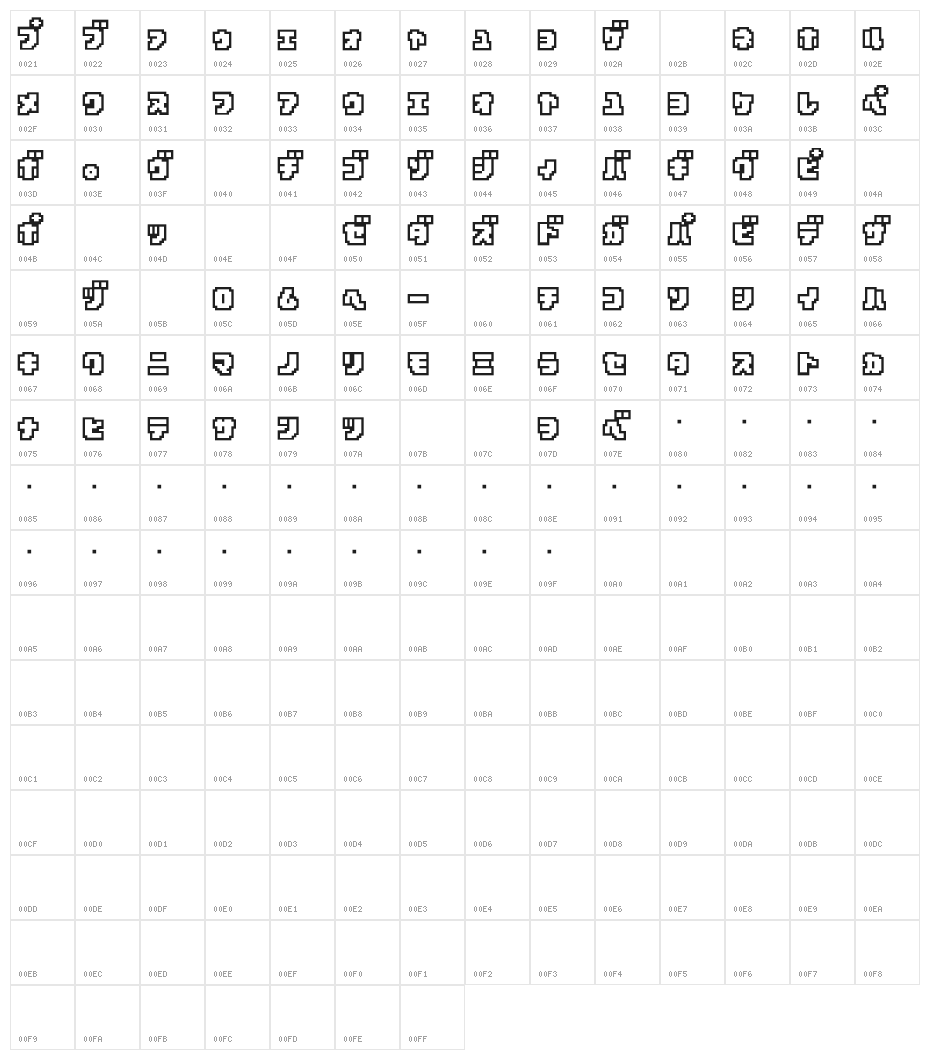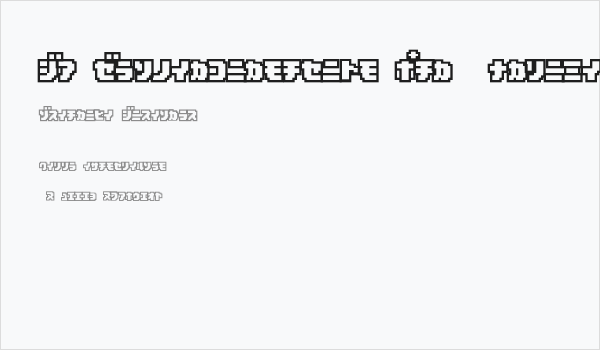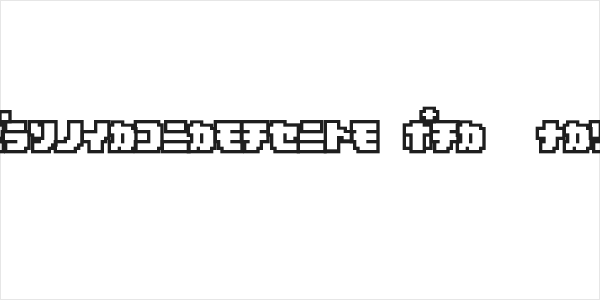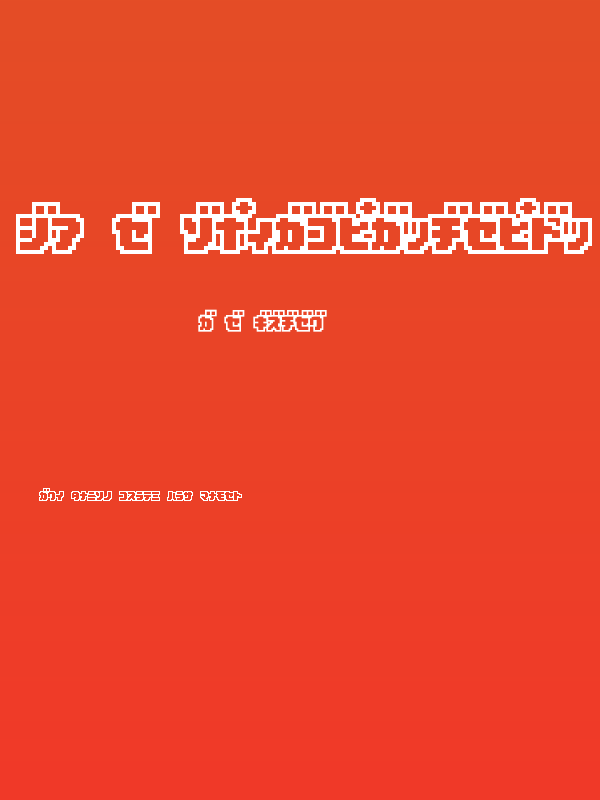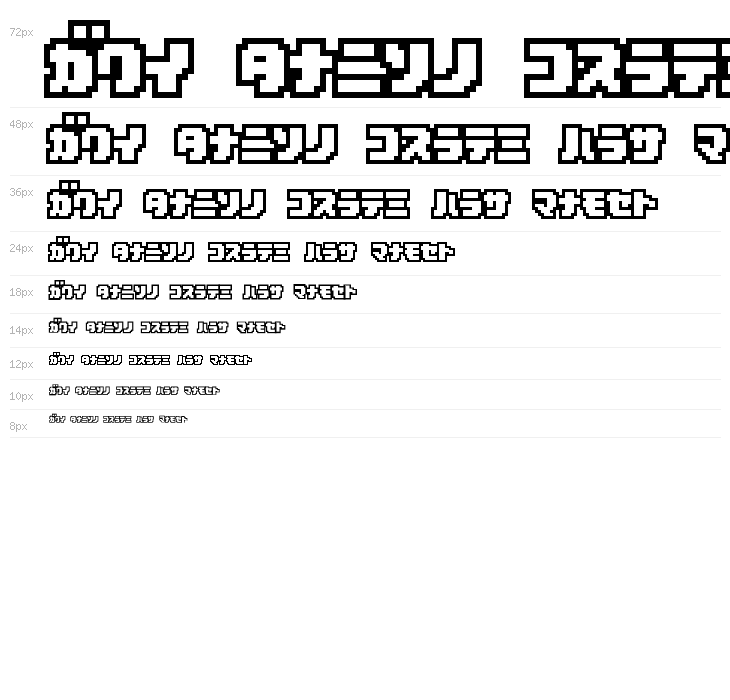
D3 Pocketbitmapism Kat Outline Font
D3 Pocketbitmapism Kat Outline Description
This font features a bold, pixelated style reminiscent of classic video game graphics. Each character is outlined with a thick border, enhancing its blocky appearance. The design is highly geometric, with sharp angles and straight lines dominating the structure of each letter. This gives the font a digital, retro feel that is both nostalgic and modern. The uniformity in height and width across characters ensures a consistent look, making it ideal for projects that require a strong visual impact. The font's playful yet structured design makes it suitable for creative and tech-oriented applications.
| Overall Style | Retro, Digital |
| Proposed Projects | Ideal for video game designs, retro-themed posters, digital art, and tech branding. |